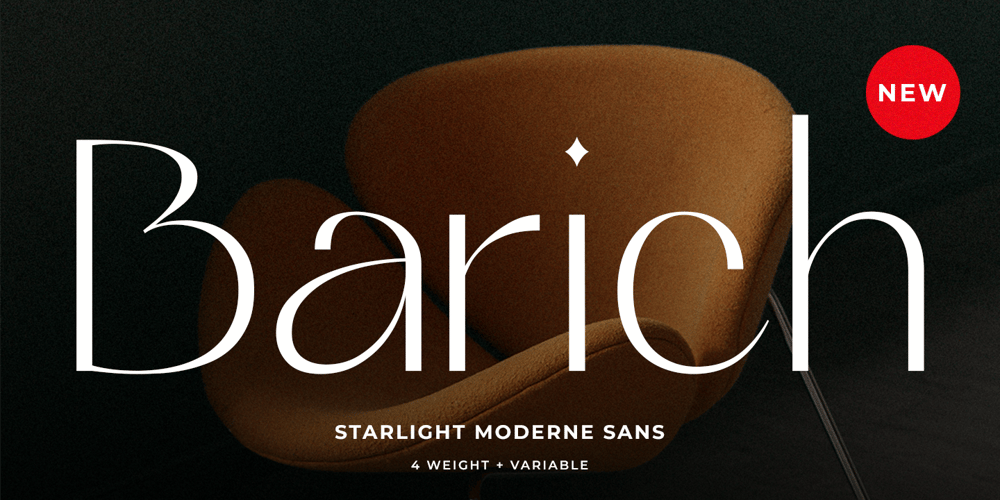
Barich Font Family was designed by Prio Nurokhim Aji and published by Prioritype. Barich contains 5 styles and family package options. Barich Moderne SansIntroducing this newest font family. Let’s call him Barich. Charming appearance and beauty in every shape, making your design look modern and elegant. Suitable for logo design, posters, magazines, websites and more.Features: Uppercase, Lowercase, Numeral, Punctuation & Multilingual.Multilingual contained: Afrikaans, Albanian, Asu, Basque, Bemba, Bena, Breton, Catalan, Chiga, Cornish, Danish, Dutch, English, Estonian, Filipino, Finnish, French, Friulian, Galician, German, Gusii, Indonesian, Irish, Italian, Kabuverdianu, Kalenjin, Kinyarwanda, Luo, Luxembourgish, Luyia, Machame, Makhuwa-Meetto, Makonde, Malagasy, Manx, Morisyen, North Ndebele, Norwegian Bokmål, Norwegian Nynorsk, Nyankole, Oromo, Portuguese, Quechua, Romansh, Rombo, Rundi, Rwa, Samburu, Sango, Sangu, Scottish Gaelic, Sena, Shambala, Shona, Soga, Somali, Spanish, Swahili, Swedish, Swiss German, Taita, Teso, Uzbek (Latin), Volapük, Vunjo, Zulu.Thanks!